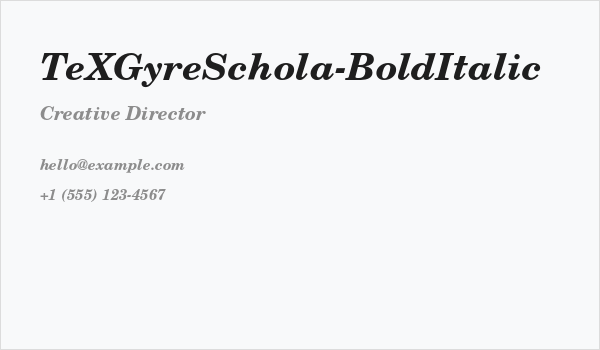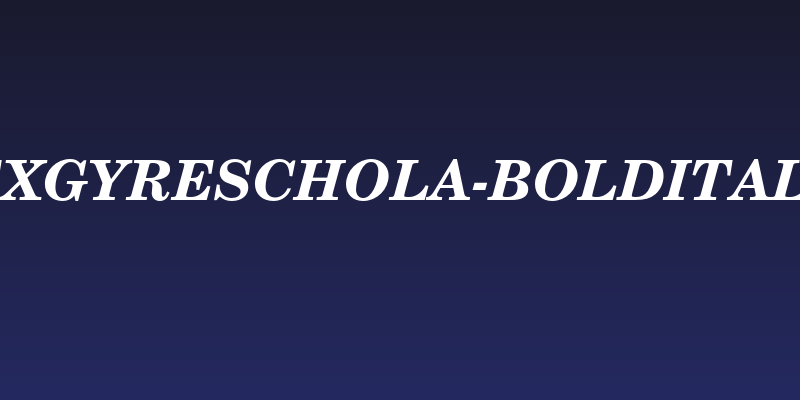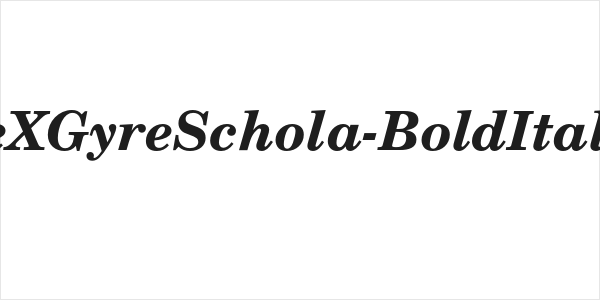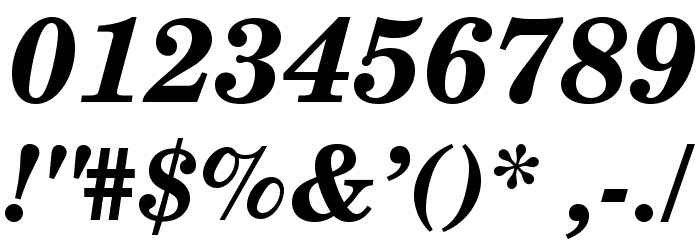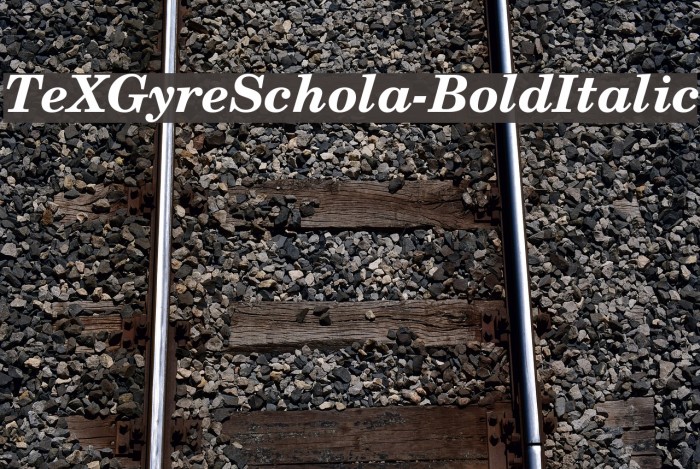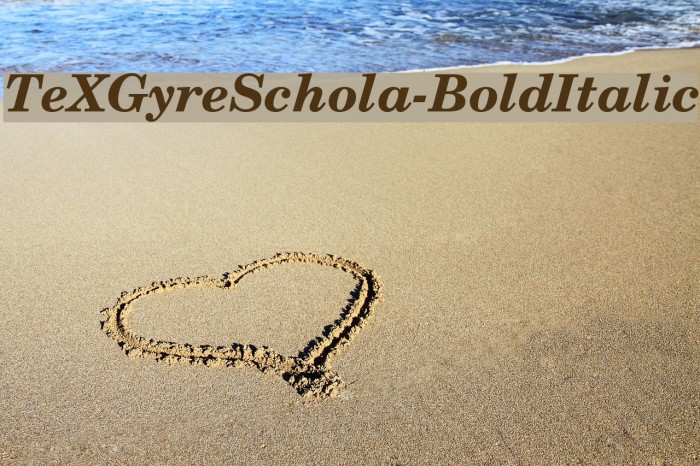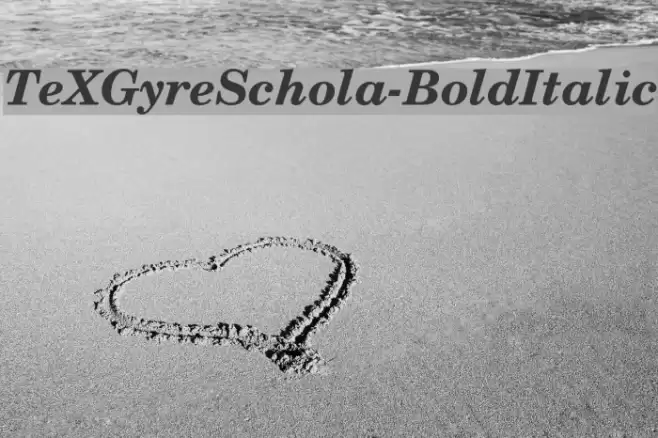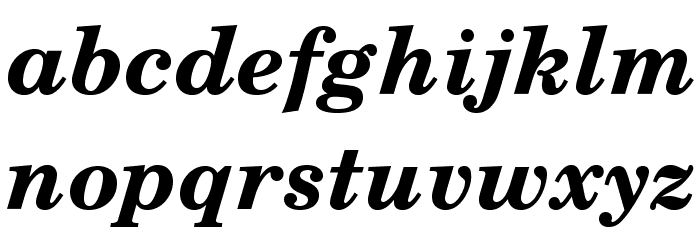
TeXGyreSchola-BoldItalic Font
TeXGyreSchola-BoldItalic Description
This font features a classic serif style with a bold and italicized appearance, giving it a strong and elegant presence. The characters exhibit a traditional serif structure with pronounced strokes and a slight slant, enhancing readability while adding a touch of sophistication. The uppercase letters are well-defined and balanced, while the lowercase letters maintain a consistent flow. Numerals are clear and distinct, making them suitable for various applications. The special characters are well-integrated, ensuring versatility in design projects.
| Overall Style | Classic |
| Use Case | Headlines, Body text, Logos |
| Proposed Projects | Ideal for formal invitations, editorial headlines, book covers, and branding materials requiring a touch of elegance. |